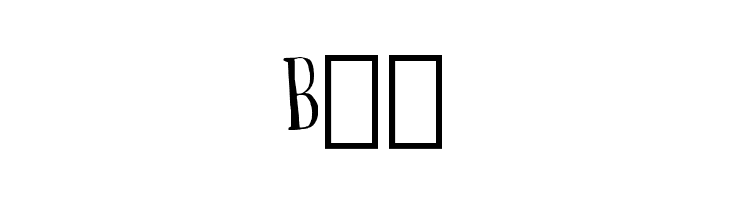
( Fonts by El Stinger )
A bold, decorative font with playful ornamental elements.
( Fonts by Christopher Hansen )
A whimsical, decorative font with swirling embellishments and a fairy-tale style.
( Fonts by Gyom Seguin - last-soundtrack.daportfolio.com )
A decorative, distressed font with elaborate swirls and a grungy appearance.
( Fonts by Christopher Hansen )
A bold, decorative font with a vintage circus theme and ornate, distressed edges.
( Fonts by Luis Angel Uribe - luisangeluribe.wordpress.com )
A hand-drawn, brush-style font with tall, slender characters and an artistic flair.
( Fonts by Rodrigo German - RASDESIGN )
A bold, edgy font inspired by urban street art and skate culture.
( Fonts by Gyom Seguin - last-soundtrack.daportfolio.com )
A distressed, grunge-style sans-serif font with skull overlays.
( Fonts by Ward Zwart - wardzwart.blogspot.com - free for personal use only! )
A bold, distressed font with a vintage, handcrafted look.
( Fonts by Rodrigo German - RASDESIGN )
A bold, distressed font with a grunge texture and rugged appearance.
( Fonts by Gyom Seguin - last-soundtrack.daportfolio.com )
A bold, distressed font with a rugged, grunge appearance.
( Fonts by Thomas O`Callaghan - www.tomocallaghan.co.uk )
A playful, textured font with a handcrafted, clay-like appearance.
( Fonts by Gyom Seguin - last-soundtrack.daportfolio.com )
A bold, distressed font with a vintage, weathered appearance.
( Fonts by Kirk Shelton - www.kirkshelton.com )
A bold, playful font with a 3D effect and distressed texture, ideal for creative projects.
( Fonts by Gyom Seguin - last-soundtrack.daportfolio.com )
A decorative serif font with a distressed, artistic flair.
( Fonts by Christopher Hansen )
A grungy, distressed font with an uneven, chaotic style.
( Fonts by www.vicfieger.com )
A hand-drawn, playful font with tall, narrow characters and a casual aesthetic.
( Fonts by Gyom Seguin - last-soundtrack.daportfolio.com )
A bold, distressed slab serif font with a grunge texture.
( Fonts by Gyom Seguin - last-soundtrack.daportfolio.com )
A bold, distressed font with a vintage, grunge aesthetic.